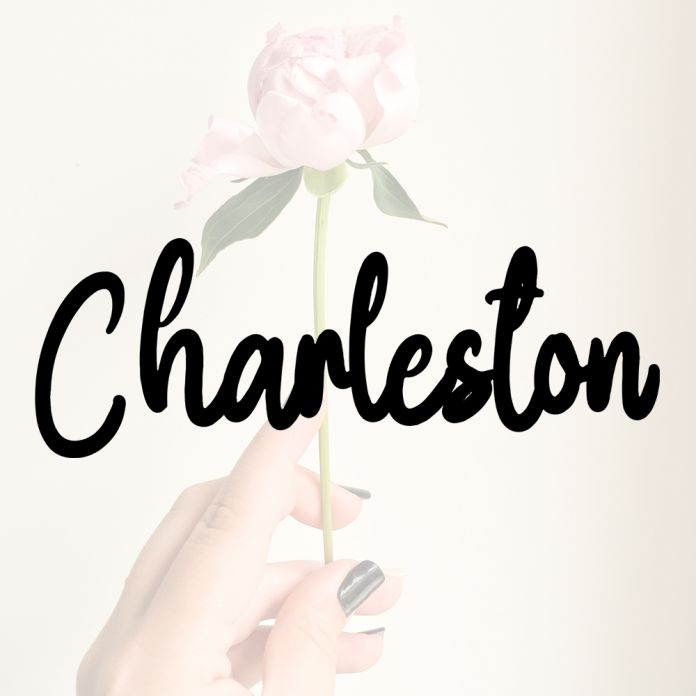
Charleston is a cool and relaxed handwritten font. This versatile font has a wide spectrum of applications ranging from greeting cards to headlines and is guaranteed to add a neat and natural feel to your next project!